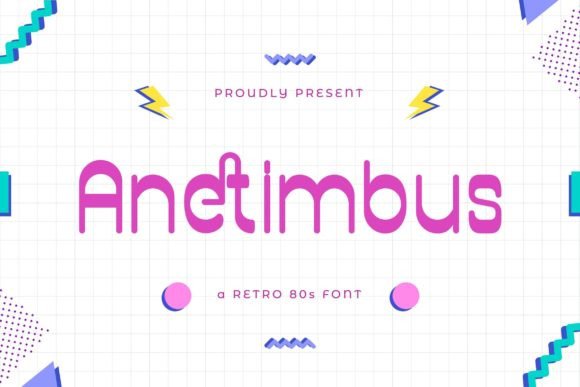
Anetimbus Font: Revive the Retro Charm of the 80s in Your Designs
Are you ready to add a blast of nostalgia to your designs? Look no further than the Anetimbus font, a retro display font that will transport you back to the iconic 80s. With its playfully nostalgic feel and incredible vintage aesthetic, Anetimbus is the perfect choice for designers and crafters looking to infuse their work with a unique and eye-catching touch.
The Retro Revival: Why Anetimbus Stands Out
Anetimbus is more than just a font – it’s a statement piece. Its bold, chunky letters and distinctive design elements evoke the spirit of the 80s, a time of big hair, big phones, and even bigger personalities. Whether you’re working on a branding project, a poster, or a digital graphic, Anetimbus is sure to turn heads and spark conversations.
Key Features of Anetimbus Font
• Retro Display Font: Anetimbus is specifically designed as a display font, making it perfect for headlines, titles, and short bursts of text.
• Vintage Aesthetic: Anetimbus delivers an incredible vintage aesthetic that’s reminiscent of the 80s, but with a modern twist.
• Playfully Nostalgic: This font is designed to evoke a sense of nostalgia, making it perfect for projects that require a touch of retro charm.
Endless Design Possibilities with Anetimbus
One of the best things about Anetimbus is its versatility. This font can be used in a wide range of design projects, from:
• Branding and Logos: Add a retro touch to your brand identity with Anetimbus.
• Posters and Flyers: Create eye-catching posters and flyers that will grab attention.
• Digital Graphics: Use Anetimbus to add a vintage touch to your social media graphics, blog headers, and more.
• Crafting and Scrapbooking: Add a personal touch to your crafting and scrapbooking projects with Anetimbus.
Tips for Using Anetimbus Effectively
To get the most out of Anetimbus, here are a few tips to keep in mind:
• Use it sparingly: Anetimbus is a bold font, so use it sparingly to avoid overwhelming your design.
• Pair it with a neutral font: Pair Anetimbus with a neutral font to create contrast and balance in your design.
• Experiment with colors: Try out different color combinations to find the perfect match for your design.